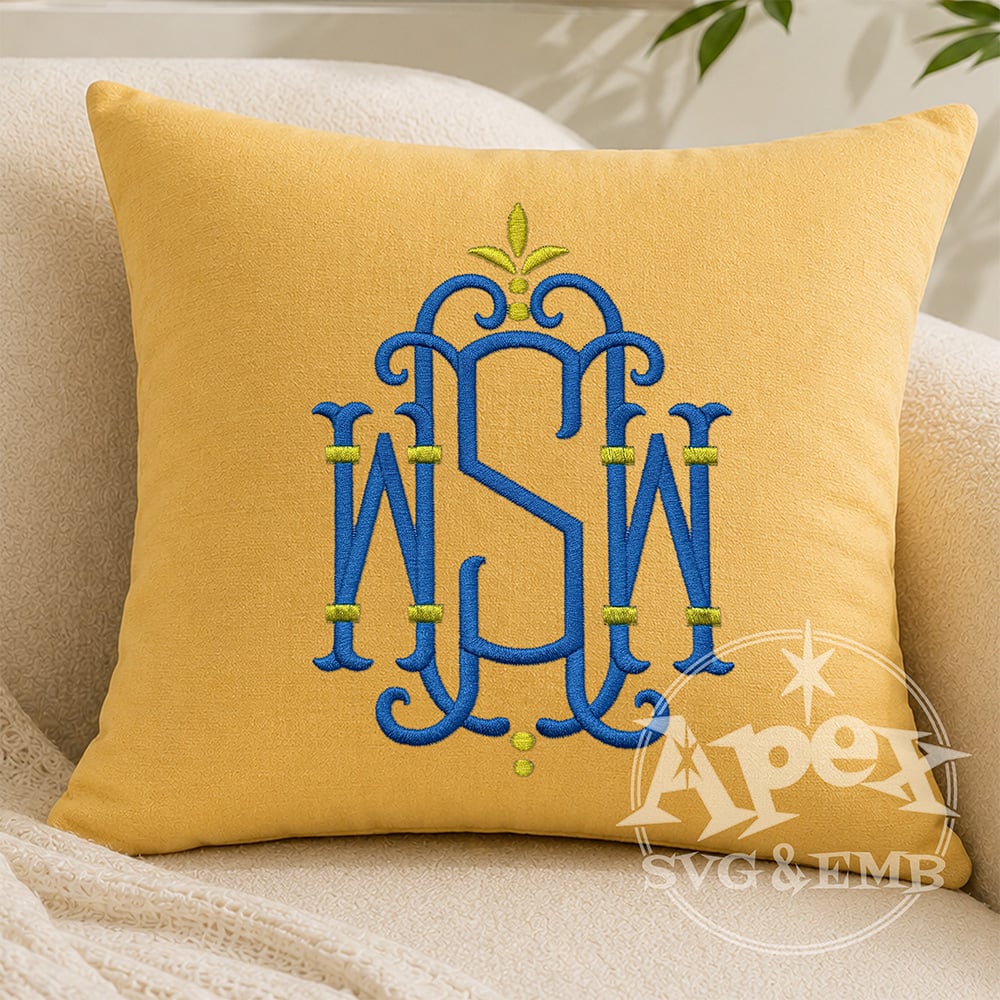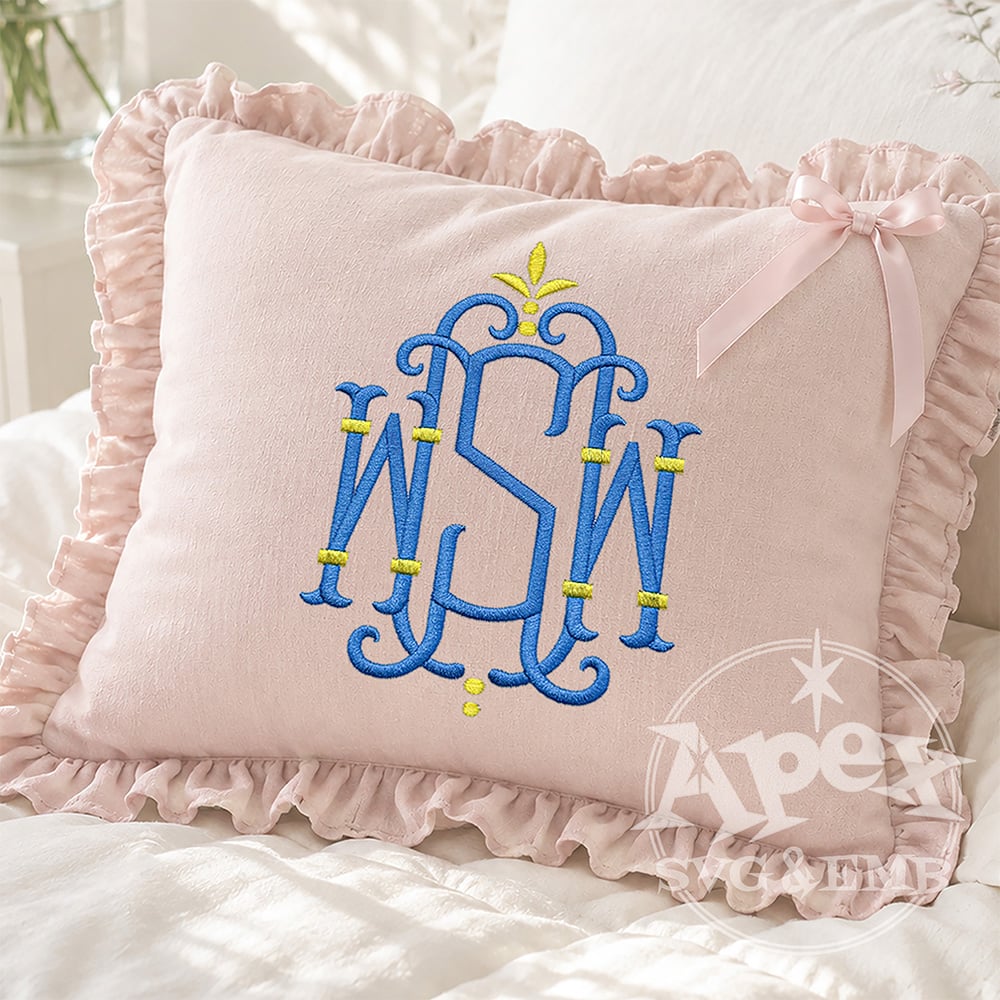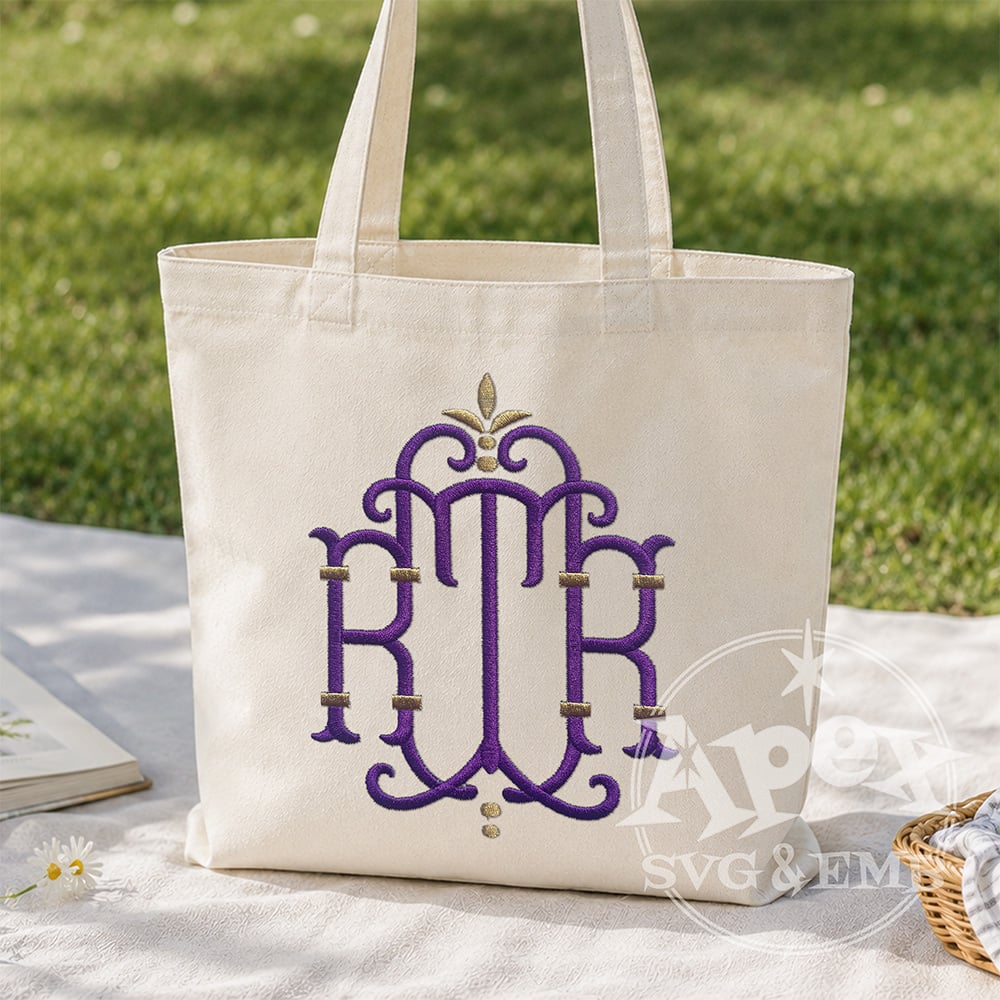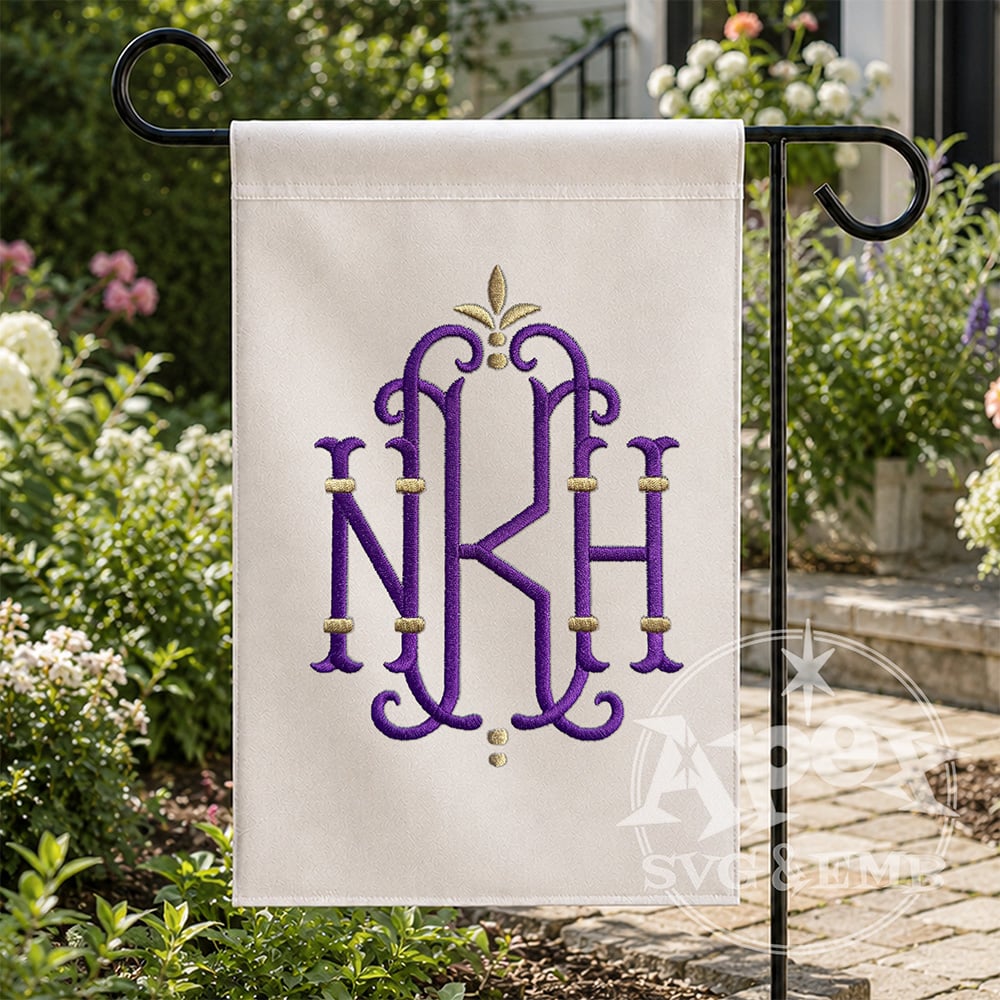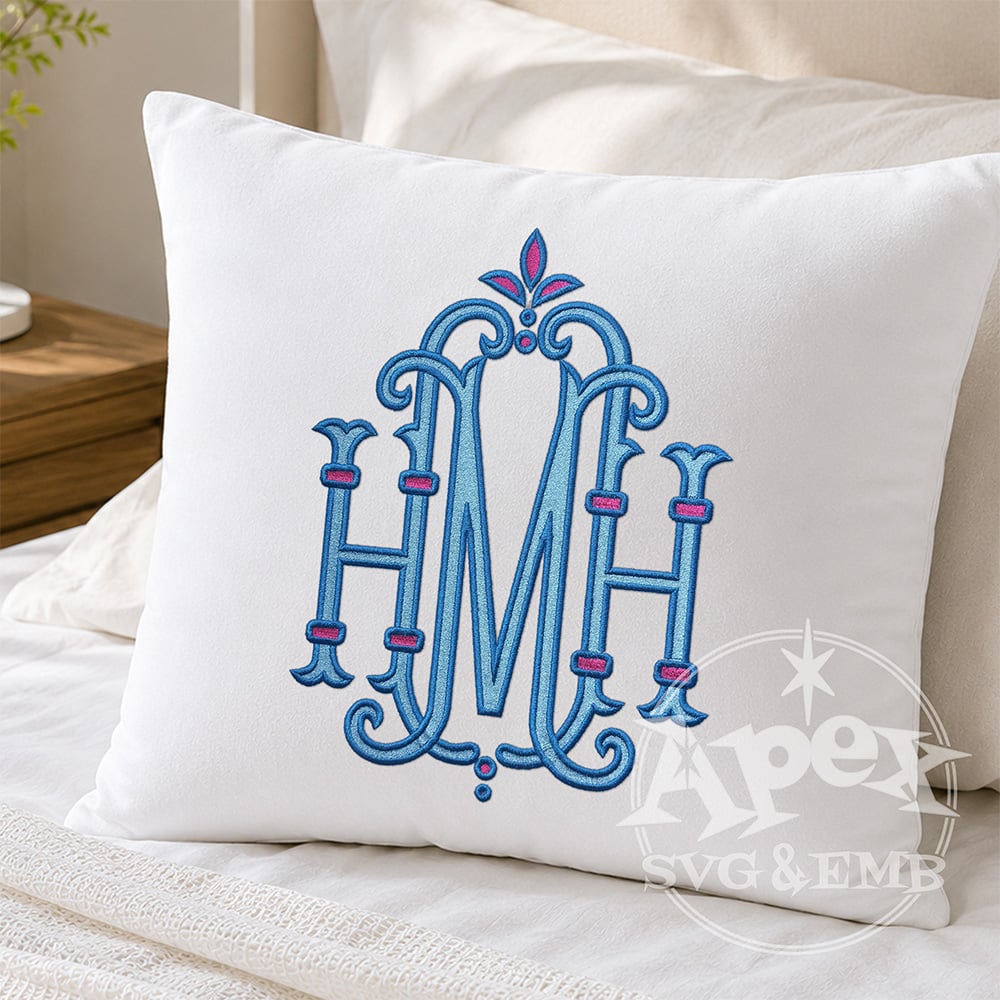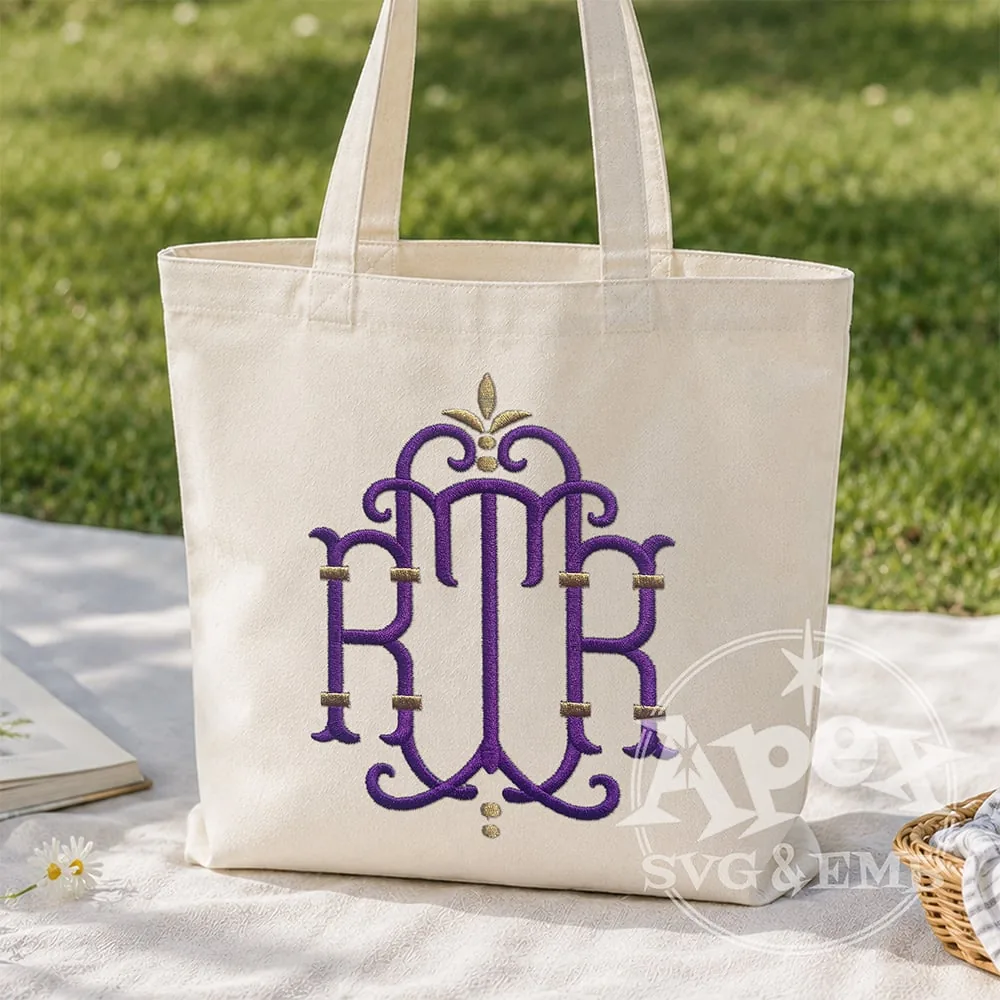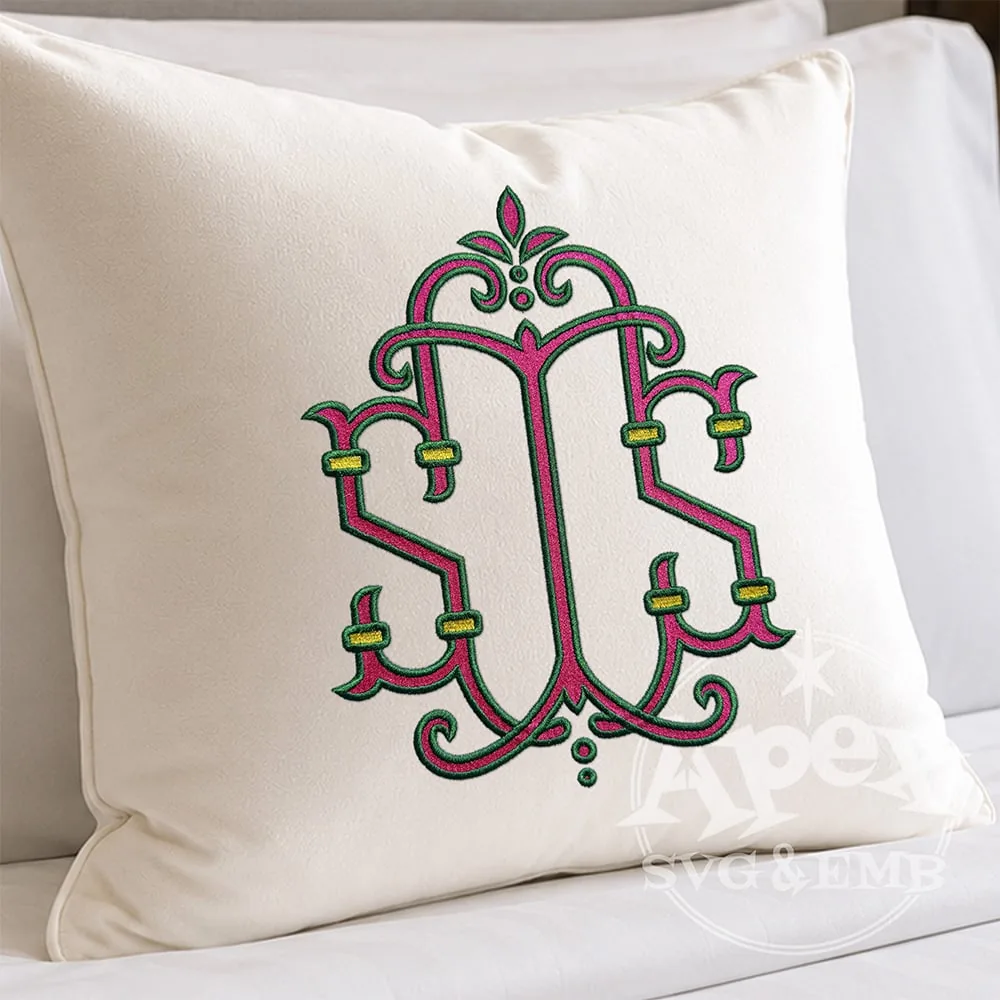
Bamboo Fishtail Monogram Embroidery Font | BX included
Create Bamboo Fishtail style personalized gifts and home décor with Bamboo Fishtail. South Pacific Monogram Embroidery Font. Classic with Tahiti stylish 2-color embroidery monogram set is perfect for customizing hats, linens, towels, baby gifts, tote bags, and more.
This fish tail with bamboo embroidery font collection includes complete size sets with uppercase monogram letters designed for creating stunning 3-letter monograms. Each font comes professionally digitized for smooth stitching and excellent embroidery results. Apex has digitized machine embroidery fonts for over 25 years.
- Perfect for 3-Letter Monograms